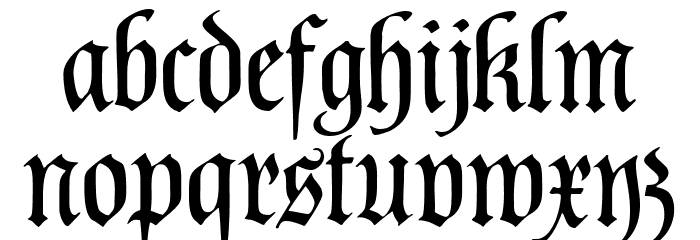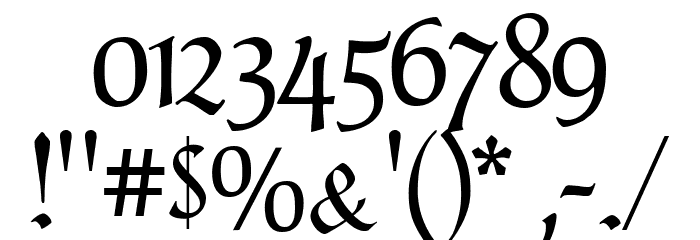
PopplFrakturCAT Font
This font exhibits a classic blackletter style, characterized by its ornate and intricate letterforms. The uppercase letters feature sharp, angular strokes with decorative flourishes, while the lowercase letters maintain a more traditional, yet equally elaborate design. The numerals are consistent with the overall style, presenting a bold and authoritative appearance. Special characters are designed to complement the aesthetic, enhancing the font's historical and formal appeal. This typeface is reminiscent of medieval manuscripts and traditional German typography, offering a sense of elegance and formality.
A classic blackletter font with ornate, intricate letterforms and a historical aesthetic.
- Proposed Projects: Ideal for projects requiring a historical or formal touch, such as certificates, invitations, or branding for traditional products.
- Overall Style: Classic
- Use Case: Headlines, Logos, Certificates